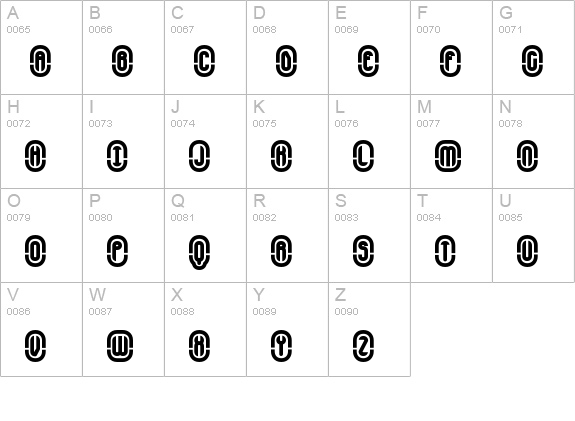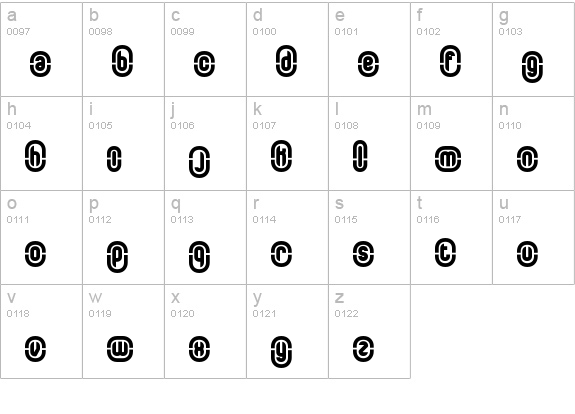
Encapsulate BRK Font Details
Encapsulate BRK font is a modern and stylish typeface that exudes sophistication and elegance. With its clean lines and sharp edges, this font is perfect for creating eye-catching designs that demand attention. The geometric shapes and bold strokes of Encapsulate BRK make it ideal for logos, headlines, and other display purposes. Best of all, Encapsulate BRK font is available for free download at FontsMarket.com. Whether you are a graphic designer, web developer, or just someone looking to add a touch of flair to your projects, this font is sure to impress. Don't miss out on the opportunity to elevate your designs with the timeless appeal of Encapsulate BRK font. Download it now and let your creativity shine!